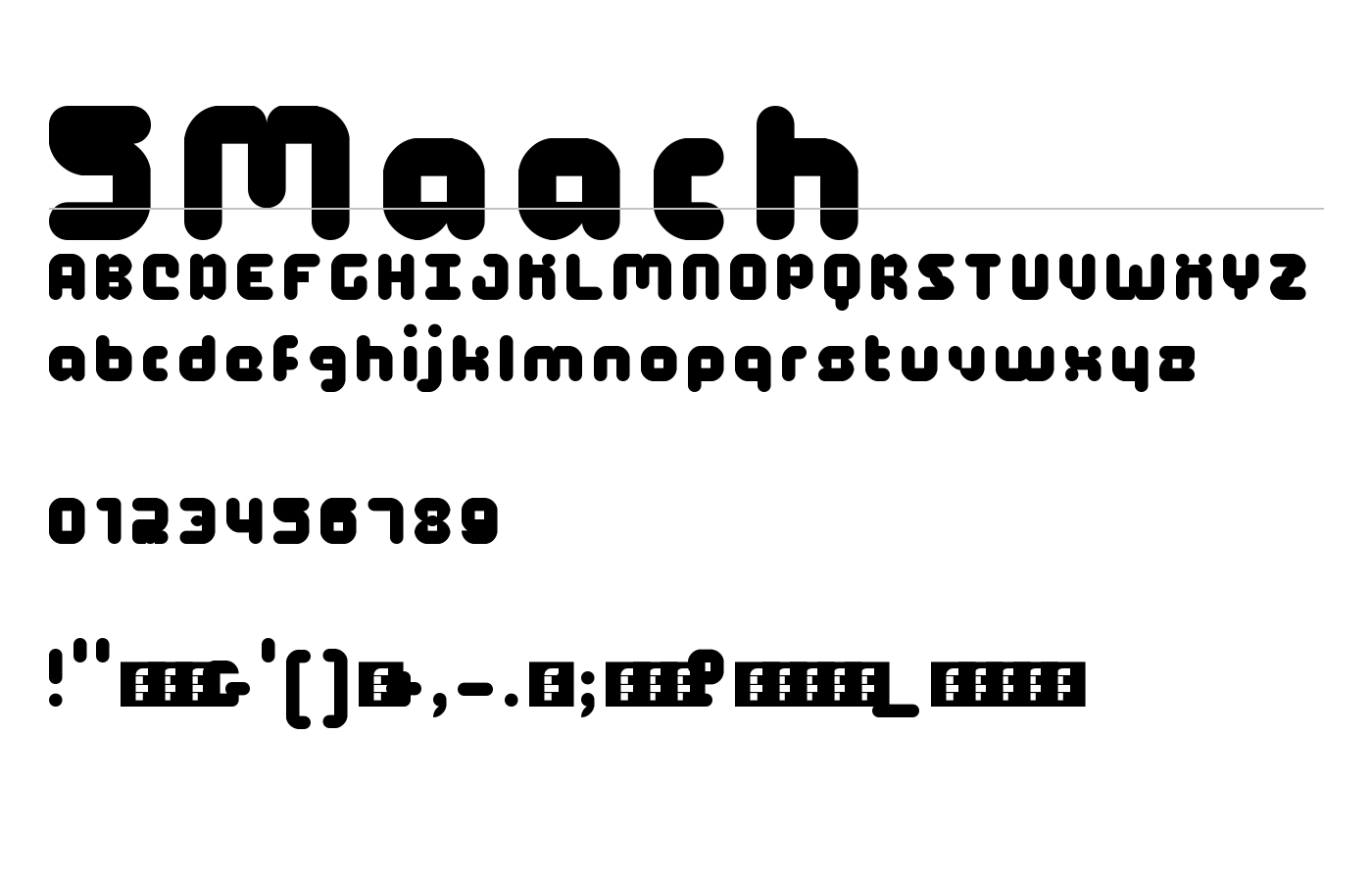
5Maach is a bold, geometric sans serif font with a strong, modern personality. Its thick, rounded strokes and blocky shapes create a playful yet sturdy look, making it ideal for attention-grabbing headlines, branding, and creative projects that want to convey a contemporary and friendly vibe. With its distinctive, tech-inspired design, 5Maach works well in digital media, posters, and packaging where clear, impactful display type is needed.
5Maach Font
About 5Maach Font
| Font family | 5Maach Font |
| Designer | Noah - 10 year old typomaniac |